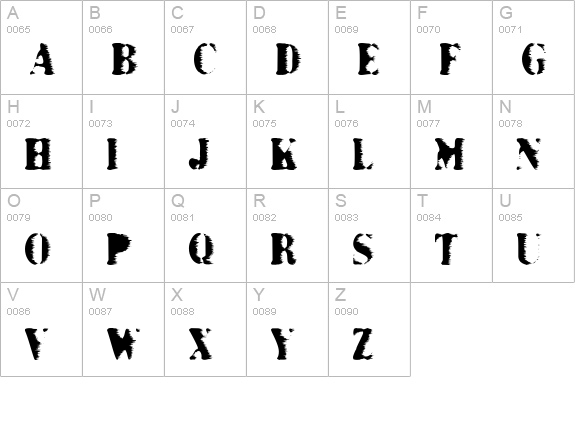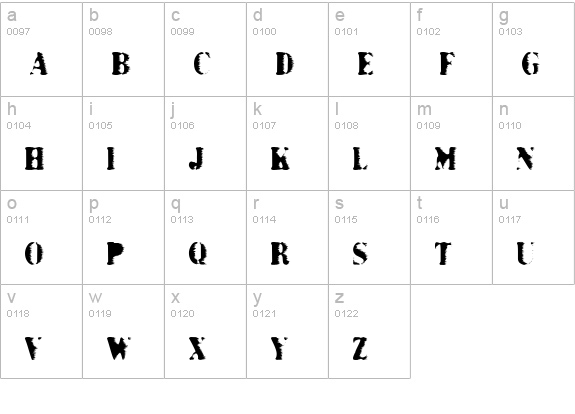
Grunge Bold is a strong, high-contrast variant in the Grunge typeface family \xE2\x80\x94 well suited to headlines, attention-grabbing titles, and strong calls-to-action.
Introducing Grunge Bold font, a powerful and edgy typeface that exudes a raw and rebellious energy. This font is perfect for making a bold statement and adding a touch of urban attitude to your designs. The rugged edges and distressed look of Grunge Bold give it a unique and gritty charm that sets it apart from traditional fonts. Whether you're creating posters, album covers, or branding materials, Grunge Bold will make your text stand out and grab attention. And the best part? Grunge Bold font is completely free to download at FontsMarket.com! Say goodbye to expensive font licenses and restrictions - with Grunge Bold, you have the freedom to use this dynamic typeface in your projects without any limitations. Don't miss out on this opportunity to add a touch of grunge to your designs with Grunge Bold font, available for free at FontsMarket.com.